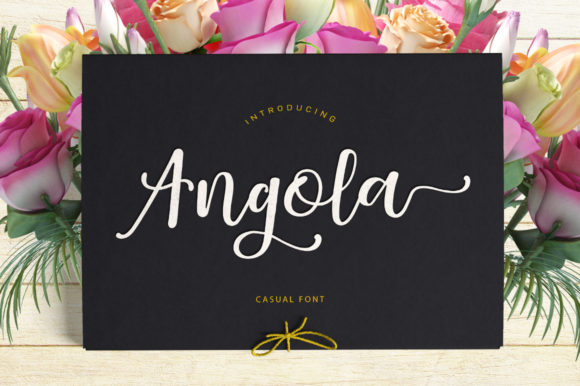
Step into the captivating world of Angola Font, a masterpiece crafted by Stripes Studio to bring your creative visions to life. Prepare to be enchanted by its delicate curves, playful swashes, and the allure of a modern script font. Angola Font is not just a font; it's an expression of your individuality, a testament to your impeccable taste.
With Angola Font at your fingertips, unleash your creativity and transform your designs into captivating works of art. Picture your words dancing across the page, each letter adorned with graceful strokes and elegant flourishes. From personal branding to heartfelt invitations, from social media posts to website designs, Angola Font promises to elevate your projects with a touch of sophistication and charm.
Indulge in the delightful versatility of Angola Font. Whether you're crafting logos that demand attention or creating brochures that exude professionalism, Angola Font seamlessly adapts to your design aesthetic. Its impeccable legibility ensures that your message is conveyed with crystal clarity, while its captivating style adds a touch of visual intrigue that leaves a lasting impression.
Step away from the ordinary and embrace the extraordinary with Angola Font. Experience the joy of effortless creativity as you watch your designs come alive with personality and charm. Let Angola Font be your creative companion, guiding you towards design excellence and unlocking the true potential of your imagination.
Embrace Angola Font today and embark on a creative journey like never before. Unleash the power of your imagination and transform your designs into captivating masterpieces that speak volumes about your unique style and impeccable taste. Immerse yourself in the world of Angola Font and let your creativity soar!